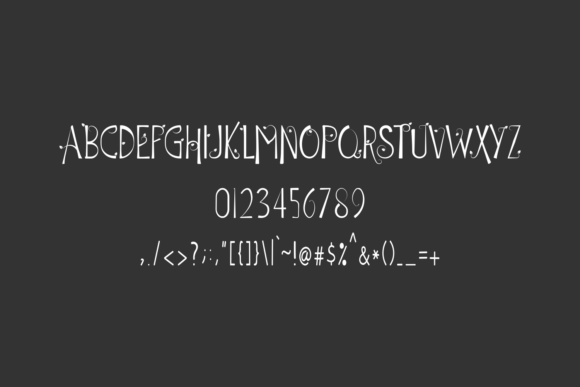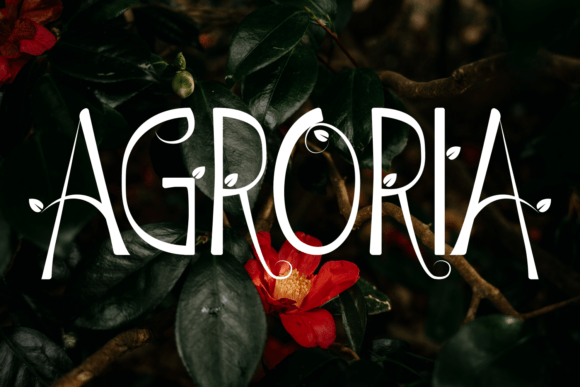
A New Era in Typography: The Story of Agroria Font
Have you ever stared at a blank canvas, trying to bring your creative vision to life, only to be halted by the perfect font eluding you? This is where the magic of Agroria Font comes in – a stylish and elegant display font that will transport your designs to a world of organic beauty.
Agroria Font is designed to bring a touch of nature to your creative projects, making it perfect for a wide range of design ideas, from elegant invitations to rustic branding. Its unique character and natural feel make it a valuable asset for designers seeking to add an extra layer of sophistication to their work.
With Agroria Font, the possibilities are endless, and its versatility is sure to inspire your next design project.
Agroria Font Key Features
- Unique Characteristics: Agroria Font features a unique blend of organic and geometric elements, creating a distinctive and modern aesthetic.
- Character Set: The font includes a comprehensive character set, including Latin, Cyrillic, and Greek alphabets, as well as punctuation and symbols.
- Kerning and Ligatures: Agroria Font includes advanced kerning and ligature pairs, ensuring smooth and elegant typography in both body text and display settings.
- Scalability: The font is designed to be highly scalable, making it suitable for use in a wide range of applications, from small text to large display settings.
Agroria Font Review
Agroria Font is a beautiful, hand-crafted typeface that shines in many areas. ✨ Its elegant, high-end aesthetic is perfect for luxury brands, high-end fashion, and upscale design projects. The font’s unique character set and varied weights offer a lot of versatility, making it suitable for a wide range of applications.
- ✨ Excellent legibility, even at smaller font sizes
- ✨ Sophisticated, luxurious feel that adds a touch of elegance to any design
- ✨ Wide range of weights and styles to choose from
However, Agroria Font also has some limitations that should be considered. ⚠️ The font’s complexity can make it difficult to use in certain situations, such as in very long blocks of text or in designs with a lot of complex typography. Additionally, the font’s high-end aesthetic may not be suitable for every type of project, and some users may find it too ornate or over-the-top.
- ⚠️ Complexity can make it difficult to use in certain situations
- ⚠️ May not be suitable for every type of project
Overall, I would give Agroria Font a solid 4 out of 5 stars. While it excels in many areas, its limitations should not be overlooked. With careful consideration and use, Agroria Font can be a fantastic addition to any design project.